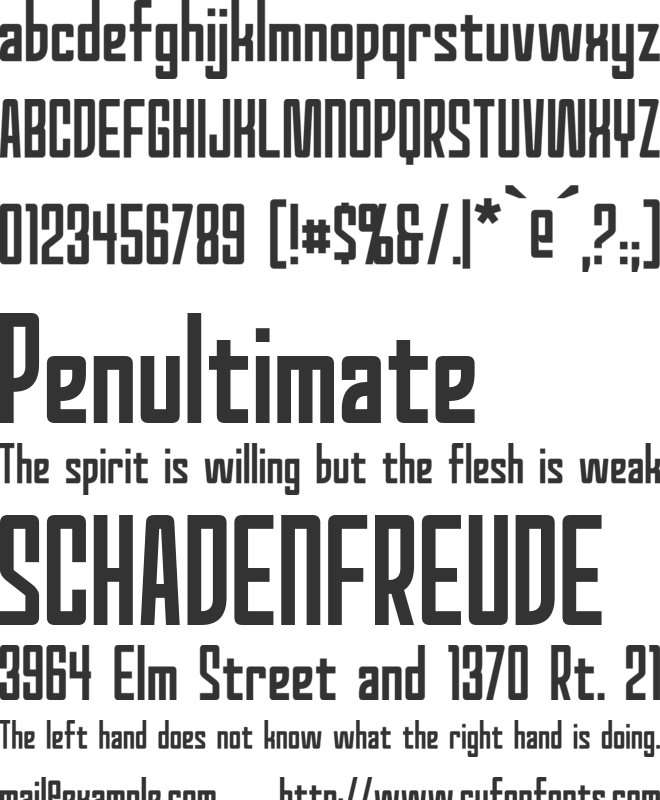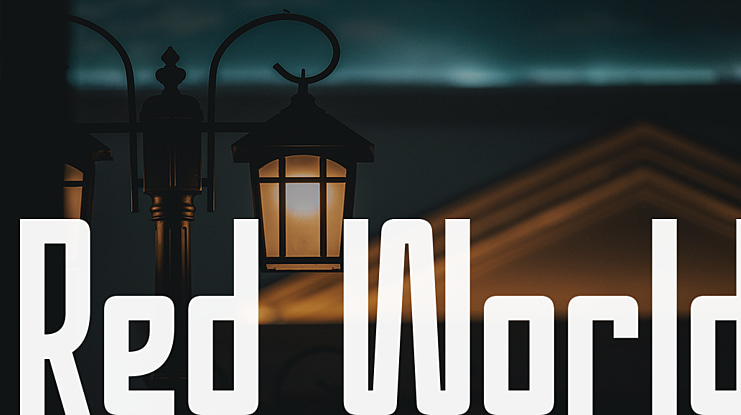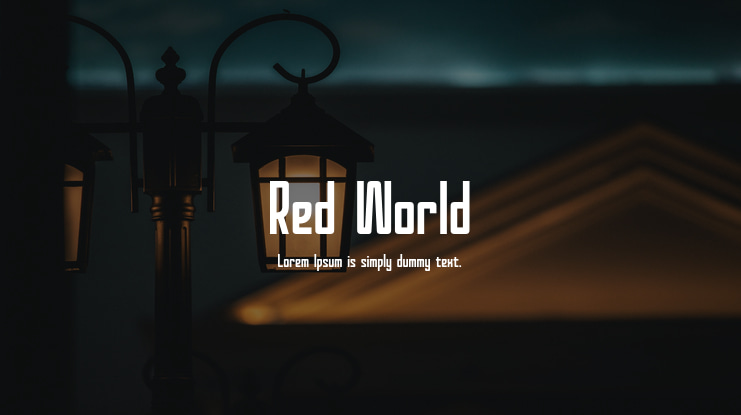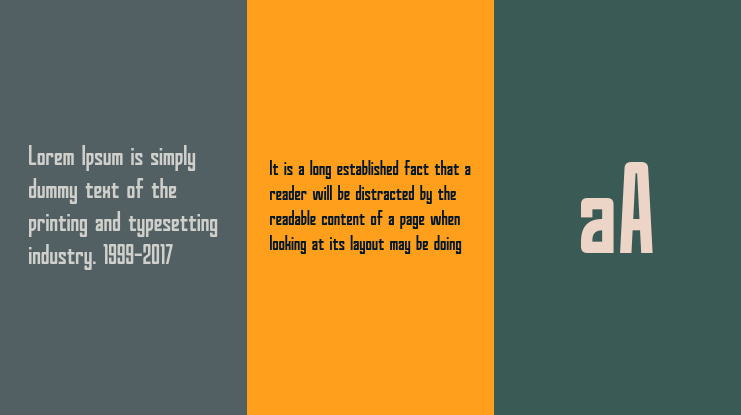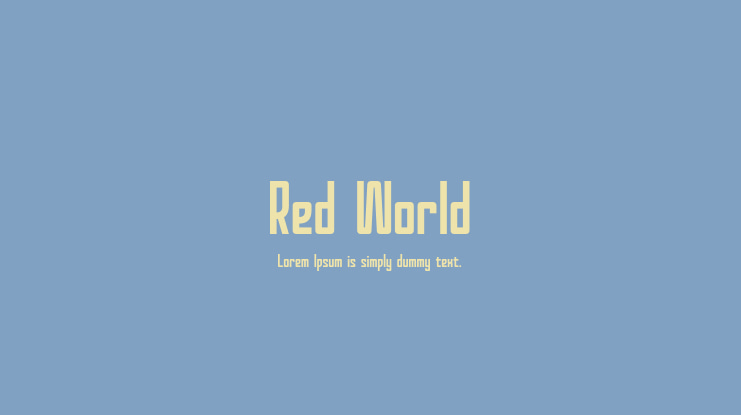
Red World Font Family
Neale Davidson
Red World is a custom commission monster-age science-fiction-based typeface. It features a tall, narrow structure with sharply-rounded curves. Includes full alphabet, extended punctuation, Euro. Includes bold, italic, and bold-italic faces.